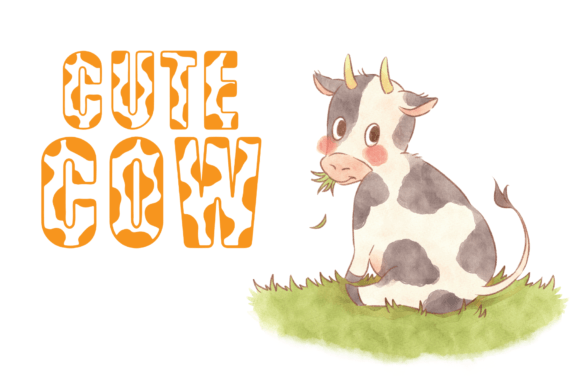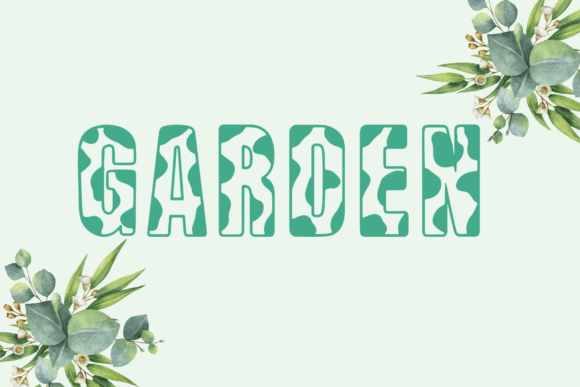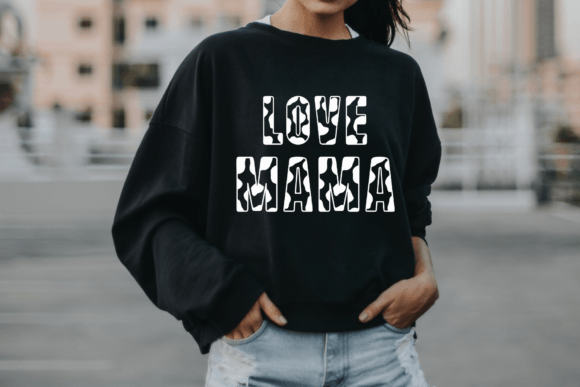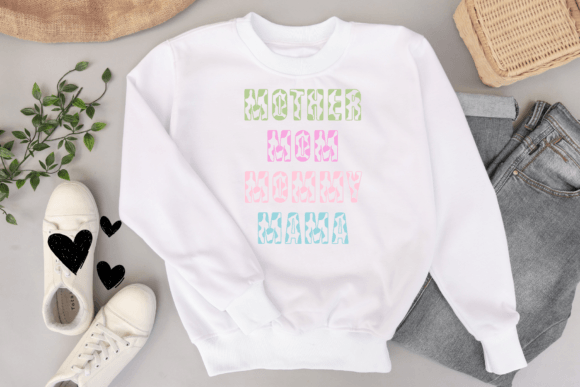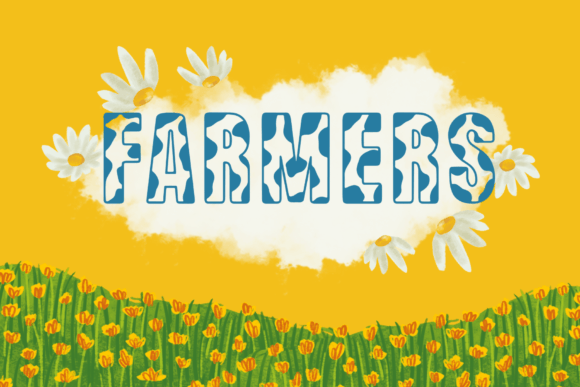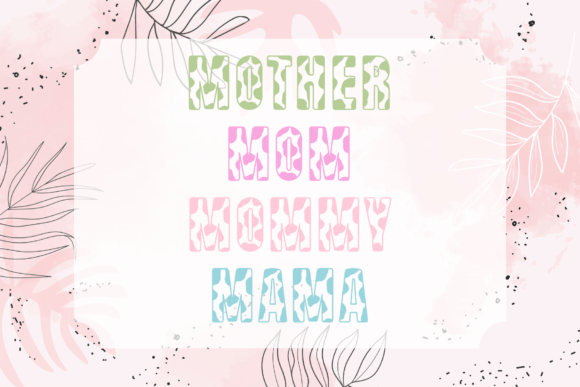
Introducing Family Font: The Ultimate Casual Companion for Designers and Crafters
Are you tired of using the same old fonts for your digital designs, crafts, and presentations? Look no further! Meet Family Font, a fun and casual simple font that’s about to become your new favorite go-to font for all occasions. In this article, we’ll dive into the world of Family Font and explore its features, benefits, and uses that make it a must-have for designers and crafters alike.
A Font for All Occasions
Family Font is a versatile font that’s perfect for a wide range of projects. Whether you’re creating digital designs, crafting handmade cards, or making presentations, this font is sure to add a touch of personality and whimsy to your work. Its casual and simple design makes it an excellent choice for:
- Crafts: Use Family Font to add a personal touch to your handmade cards, scrapbook pages, and other craft projects.
- Digital design: Add a playful touch to your social media graphics, blog posts, and website designs.
- Presentations: Make your presentations more engaging and fun with Family Font’s casual and approachable vibe.
- Greeting cards: Create personalized and heartfelt greeting cards for special occasions.
What Makes Family Font Special?
So, what sets Family Font apart from other fonts? Here are some of its unique features:
- Simple and casual design: Family Font has a clean and straightforward design that’s easy to read and understand.
- Fun and playful vibe: This font has a lighthearted and playful personality that’s perfect for adding a touch of whimsy to your projects.
- Highly versatile: Family Font can be used for a wide range of projects, from digital designs to handmade crafts.
- Easy to pair with other fonts: Family Font pairs well with other fonts, making it easy to create unique and interesting typography combinations.
Benefits of Using Family Font
Using Family Font in your projects can bring a range of benefits, including:
- Increased creativity: Family Font’s playful and casual design can inspire creativity and help you think outside the box.
- Improved readability: This font’s simple and clear design makes it easy to read, even at small sizes.
- Consistency across projects: Using Family Font across multiple projects can help create a consistent visual brand and aesthetic.
- Time-saving: With Family Font, you can quickly and easily add a professional-looking font to your projects, saving you time and effort.
Tips for Using Family Font
Here are some tips for getting the most out of Family Font:
- Experiment with different sizes: Family Font looks great at a range of sizes, from small to large.
- Pair with other fonts: Try pairing Family Font with other fonts to create interesting and unique typography combinations.
- Use it for headings and body text: Family Font is versatile enough to use for both headings and body text.
- Add a personal touch: Use Family Font to add a personal touch to your projects, such as in a handmade card or a personalized gift.
| Author | Cutie Kate Studio |
Family Font is a fun and casual simple font that’s perfect for designers and crafters looking to add a touch of personality to their projects. With its versatile design, playful vibe, and ease of use, it’s no wonder that Family Font is quickly becoming a go-to font for creatives. Whether you’re working on digital designs, crafts, presentations, or greeting cards, Family Font is sure to become your new favorite font.